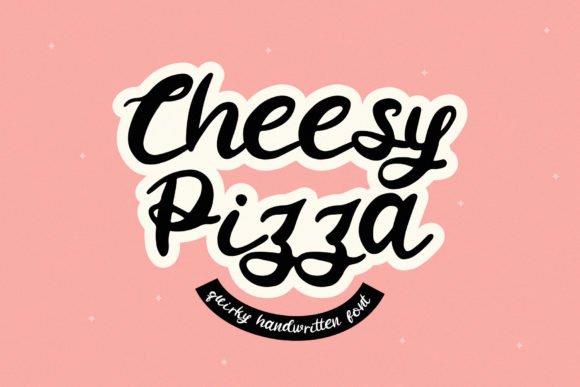
Get Ready to Crave More Creativity with the Cheesy Pizza Font
Have you ever been in the midst of a design project, staring blankly at your computer screen, and suddenly, inspiration strikes? Maybe it’s the perfect color palette, a clever layout, or – in this case – the perfect font. For designers, finding that one special font can be the game-changer that takes your project from meh to magnificent.
Enter the delightful Cheesy Pizza Font, a whimsical handwritten font that’s sure to bring a smile to your face. With its quirky charm, this font is the perfect addition to any project that needs a dash of personality. Whether you’re designing a menu for a trendy pizza joint or creating a social media campaign for a foodie brand, the Cheesy Pizza Font is the perfect tool to bring your vision to life.
Cheesy Pizza Font Key Features
- Font Family: Cheesy Pizza Font is a unique, hand-drawn font family designed to resemble melted cheese and pizza crust.
- Unique Characteristics: Cheesy Pizza Font features a distinctive, bubbly texture that gives it a playful and fun feel, perfect for food-related branding, packaging, and advertising.
Designer Review: Cheesy Pizza Font
First off, let me say that I’m a fan of playful fonts, and Cheesy Pizza Font definitely delivers. ✨ I love how it captures the essence of a classic pizza joint, with its bold, chunky letters and fun texture. It’s perfect for adding a touch of whimsy to your designs.
Some of the strengths of Cheesy Pizza Font include:
- Its versatility: it works well for headings, titles, and even body text.
- Its unique texture: it adds a tactile feel to your designs that’s hard to replicate with other fonts.
- Its wide range of ligatures: it’s perfect for creating a cohesive look across your branding materials.
- It may be too bold for some designs: if you’re going for a more subtle look, you may find that Cheesy Pizza Font overpowers the rest of your elements.
- It’s not ideal for small text: the font’s chunky style can make it difficult to read at smaller sizes.
- It may not be suitable for formal designs: while it’s perfect for casual or playful designs, it may not be the best choice for formal or professional projects.
Overall, I think Cheesy Pizza Font is a great addition to any designer’s toolkit. While it may have its limitations, it’s a fun and versatile font that’s sure to add a touch of personality to your designs.
The Cheesy Pizza Font is perfect for:
- Food-related designs, such as pizza menus or food blogs.
- Playful and casual designs, such as social media graphics or flyers.
- Adding a fun and whimsical touch to your designs.
Remember to experiment with different font sizes, colors, and alignments to get the most out of the Cheesy Pizza Font.
Alternatives to “Cheesy Pizza Font” for Designers
Great Vibes is a modern script font that is ideal for casual and creative projects. It features a flowing, handwritten feel that is perfect for branding, packaging, and advertising. Great Vibes is a more polished and refined alternative to Cheesy Pizza Font, making it suitable for a wider range of design applications.
Comparison: Great Vibes is more elegant and sophisticated than Cheesy Pizza Font, making it a better choice for high-end branding and design projects.
Pacifico is a beautiful, elegant script font that is perfect for creating a relaxing and beachy vibe. It features a flowing, handwritten feel that is ideal for branding, packaging, and advertising. Pacifico is a more refined and sophisticated alternative to Cheesy Pizza Font, making it suitable for a wide range of design applications.